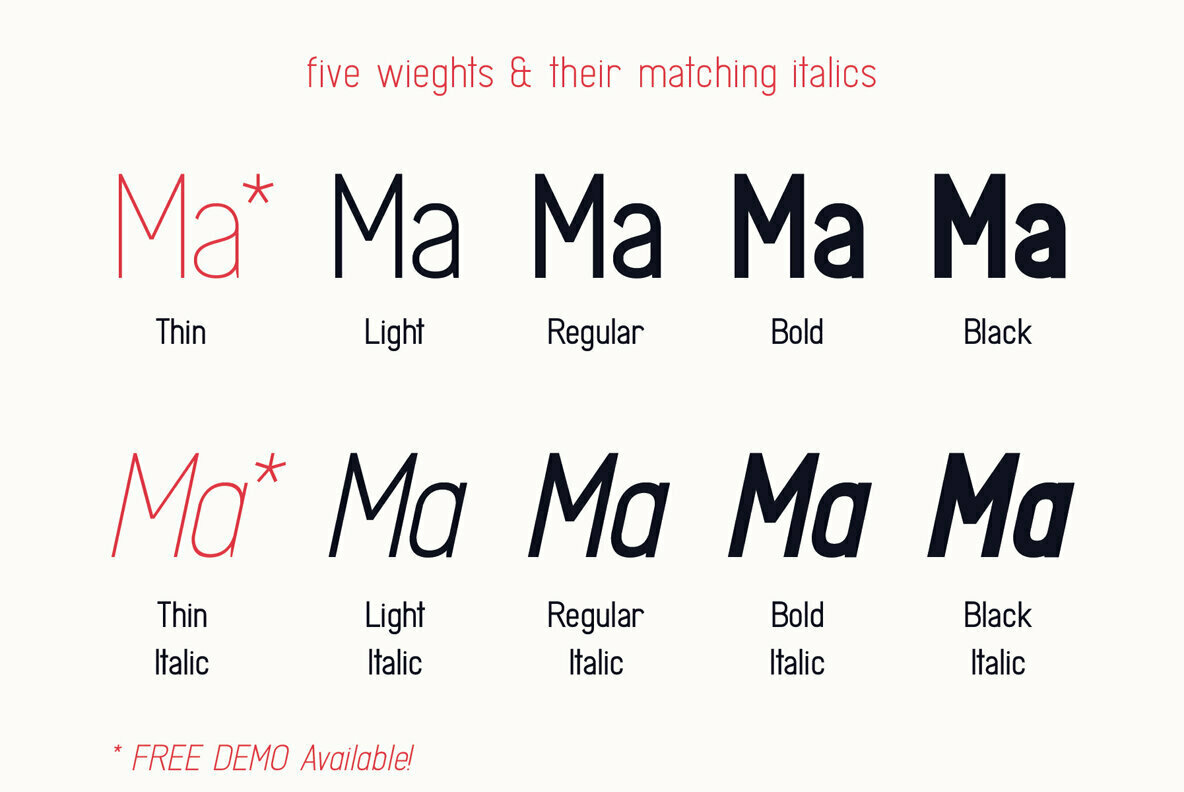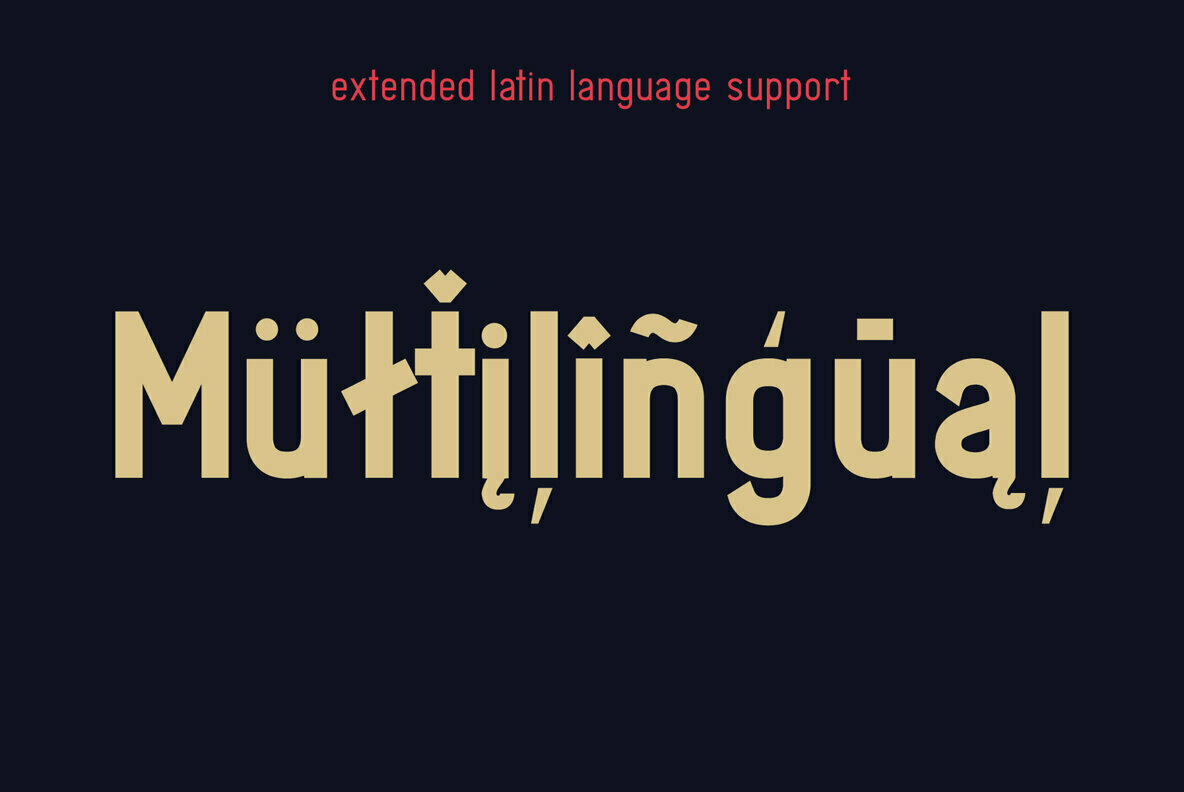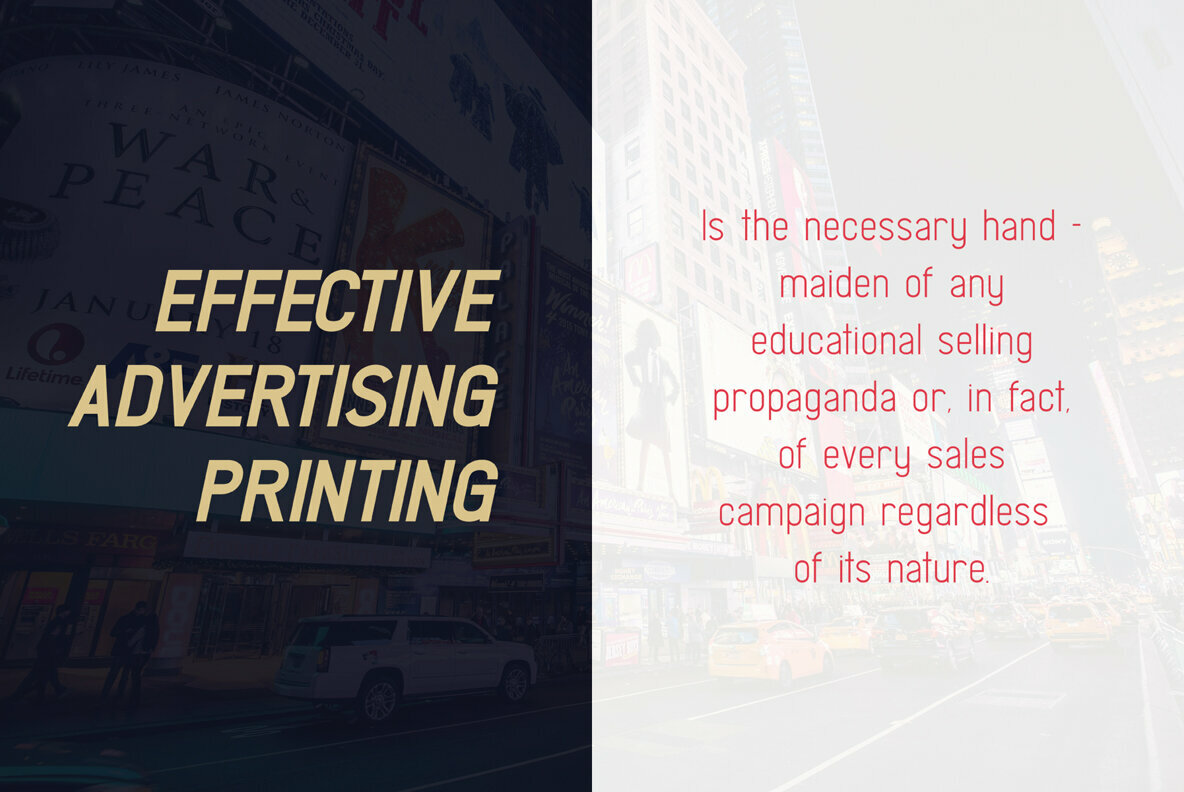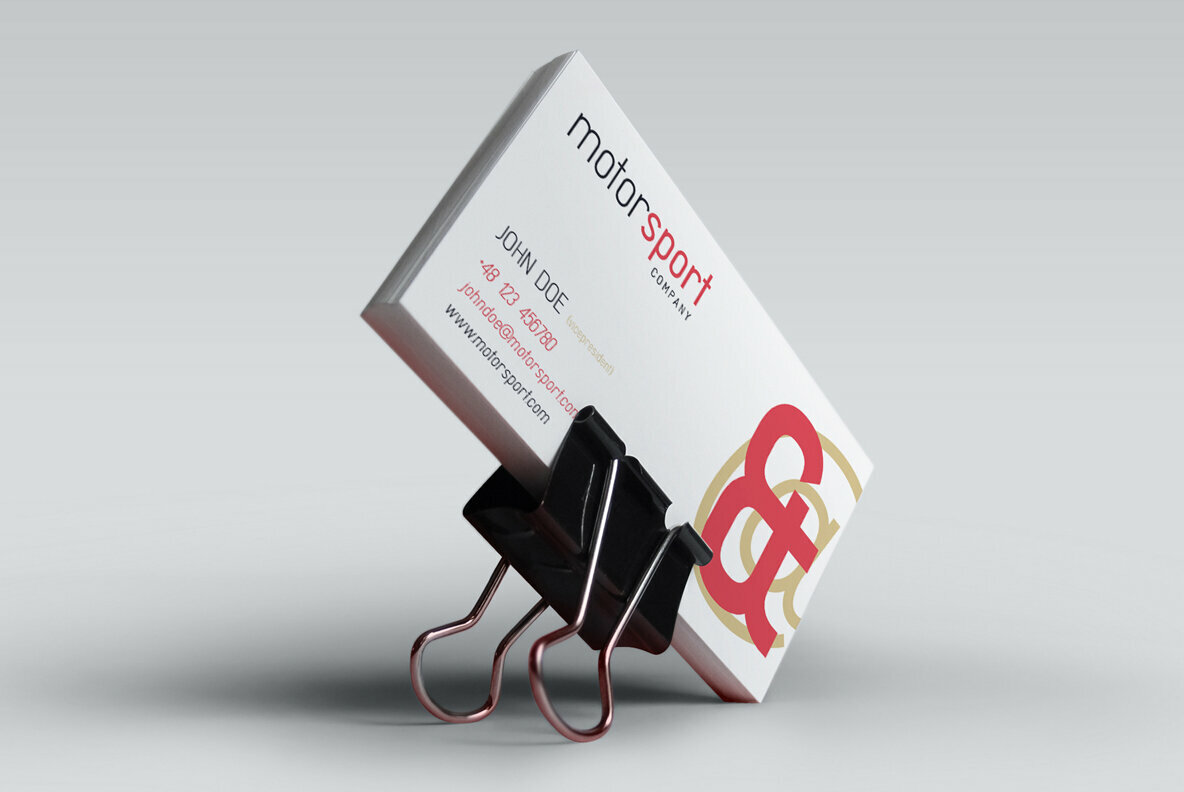
Madchen Font
Madchen is a modern sans serif font family in 10 styles with little condensed and geometric feel. Five weights and italic styles can help users create eye-catching designs and brands. Madchen is great for screen, editorial, publishing, logos, advertising, branding and corporate identities. It support a wide range of languages including Extended Latin.